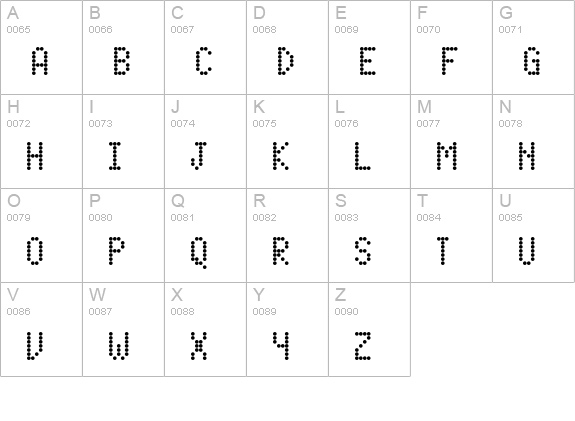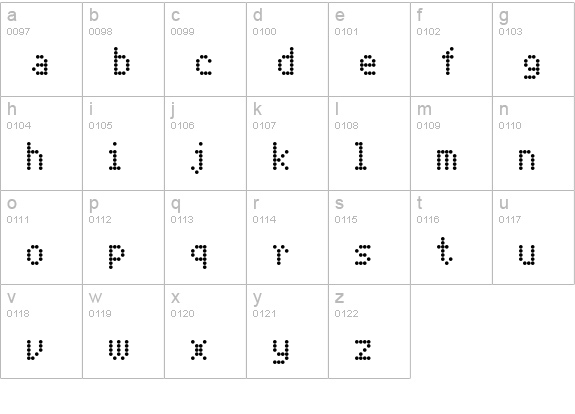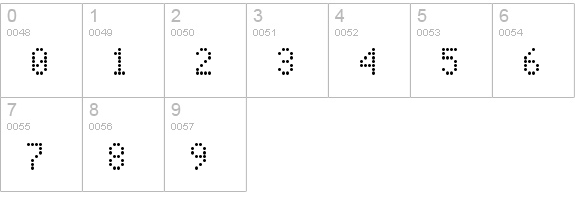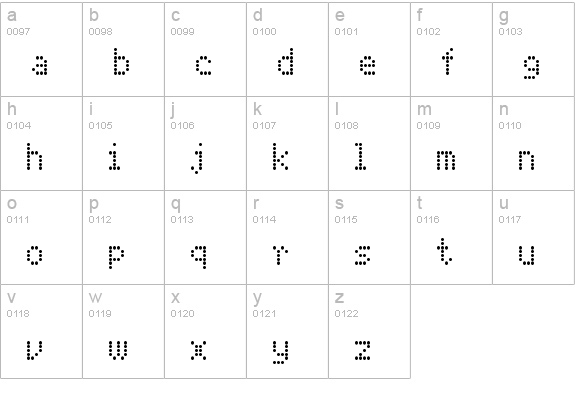
DotMatrix-TwoNarrow is a modern and sleek font that features a unique dot matrix style with a narrow design. This font is perfect for adding a futuristic and tech-inspired look to your projects. With its clean lines and crisp edges, DotMatrix-TwoNarrow is versatile and can be used for various design purposes, such as logos, posters, digital displays, and more. What makes DotMatrix-TwoNarrow even better is that it is available for free download at FontsMarket.com. You can easily access this font and enhance your designs without any cost. Enjoy the modern and stylish vibe that DotMatrix-TwoNarrow brings to your projects, all while staying within your budget. Download this font today and elevate your designs with its contemporary and eye-catching appeal.